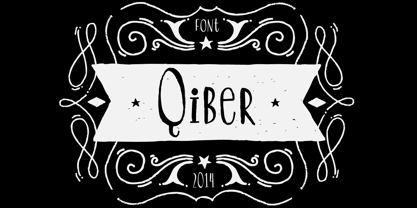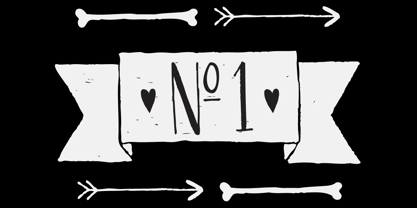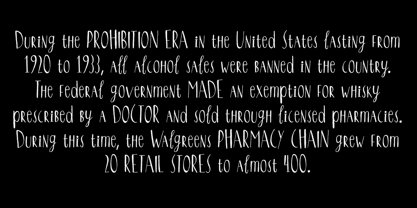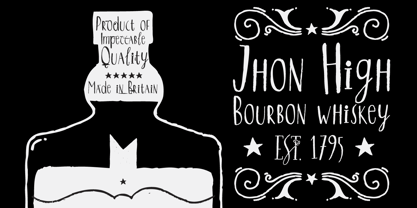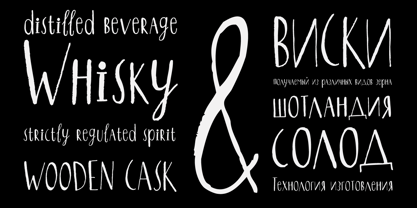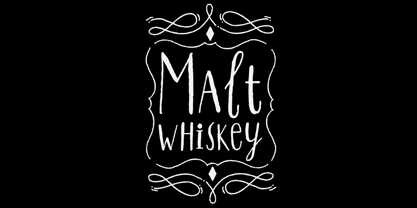
Qiber
by Inhouse Type
The Qiber Font Family was designed by Mariya V. Pigoulevskaya and published by Inhouse Type. Qiber contains 1 styles. More about this family
Qiber is a condensed handmade font with a unique flavour and personality. Designed primarily for display use, it can be applied in a variety of contexts. Qiber has a friendly and playful feel, which is a result of mixing up small caps within the lowercase character set. The font is versatile and will appeal to a wide audience. Details include 475 characters, manually edited kerning and a selection of various ornaments.
Designers: Mariya V. Pigoulevskaya
Foundry: Inhouse Type